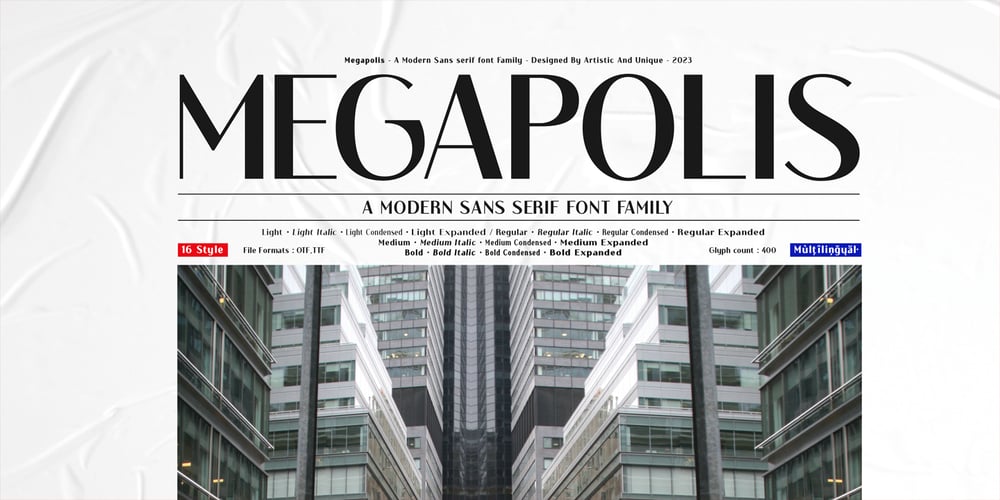
Megapolis Font Family was designed by Osman Taner Kucukgenc and published by Artisticandunique. Megapolis contains 16 styles and family package options. Megapolis – Sans Serif Font Family – Multilingual support – 16 StylesWith its elegant and clean structure with 16 styles and multilingual supports, you can easily use the sans serif font feature in many areas. From body text to big headlines, from classic to modern and bold styles, you can develop your projects.Ideal for books and magazines, magazine covers, editorials, headlines, websites, logos, branding, advertising and more.You can create your unique designs with this font.Have a good time.